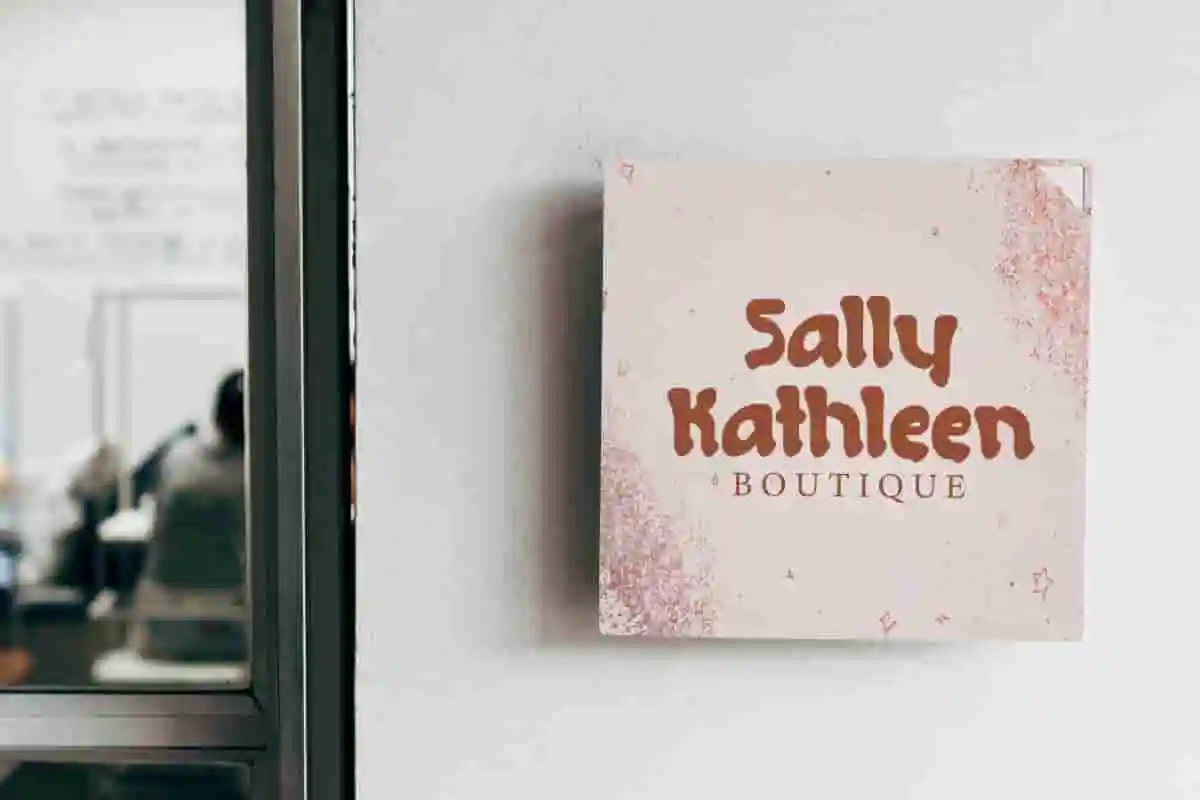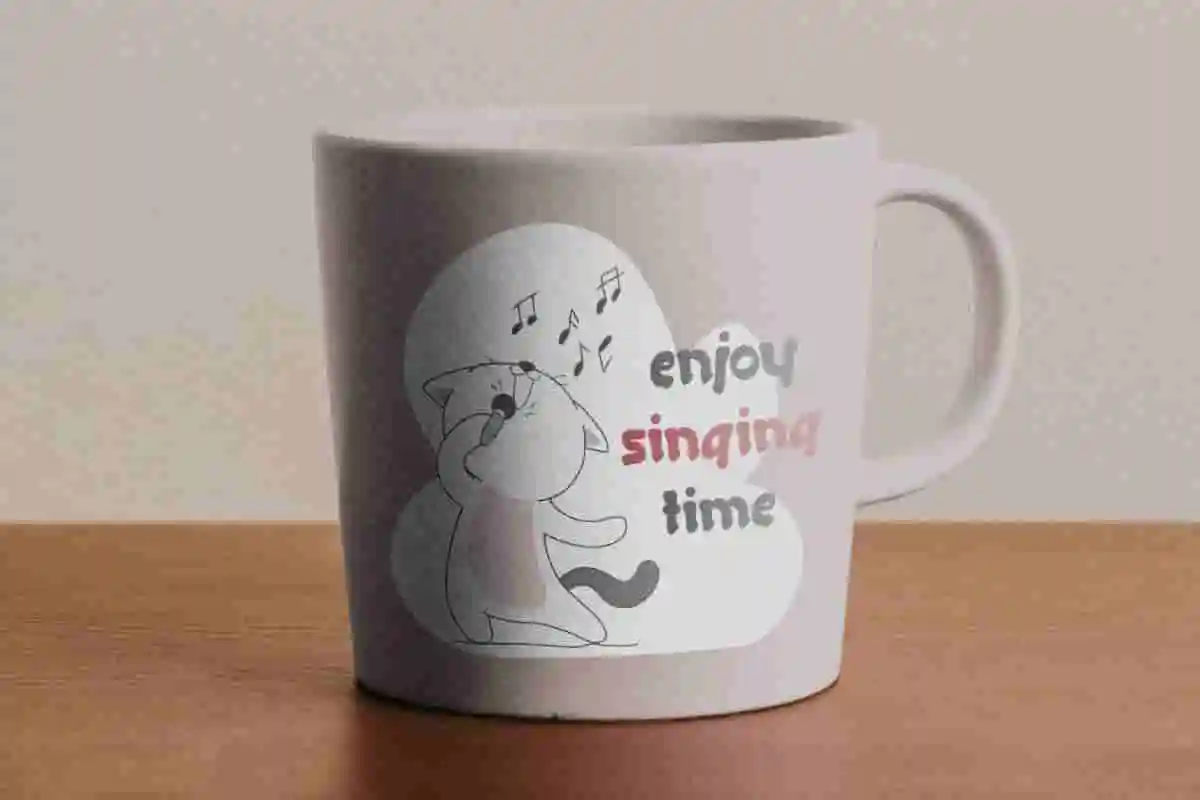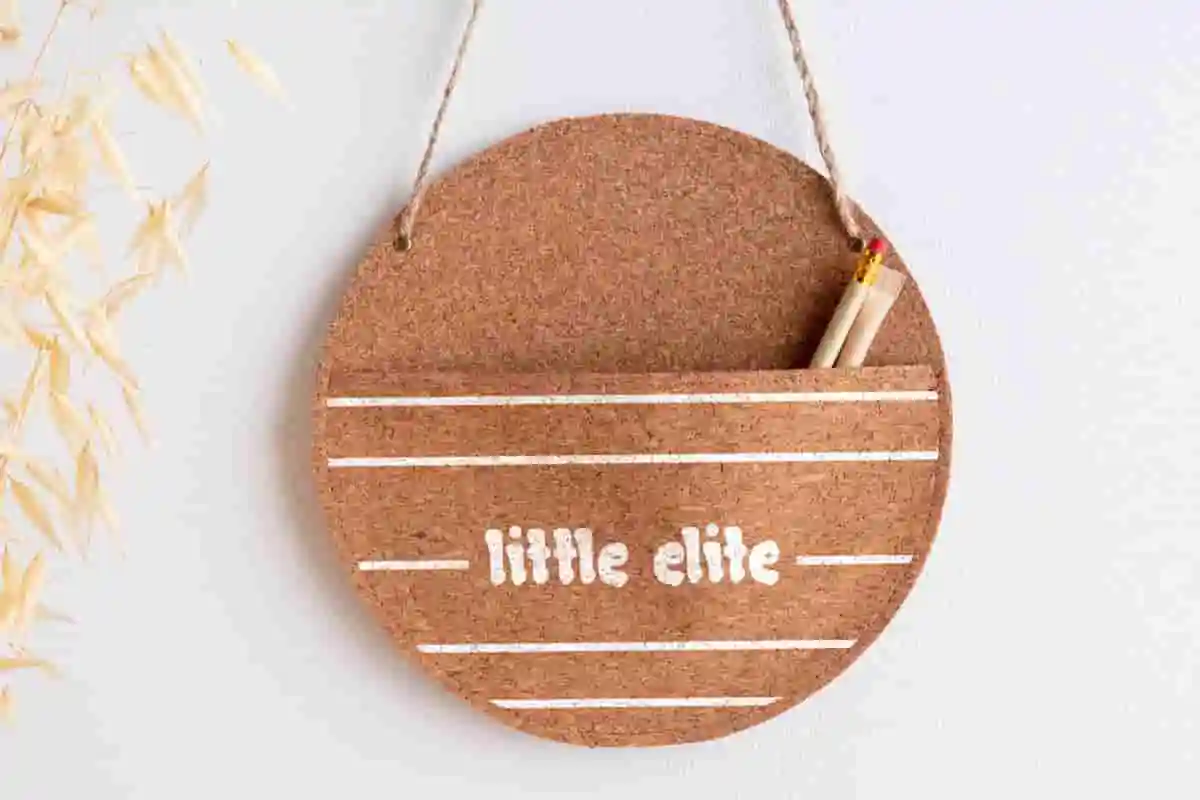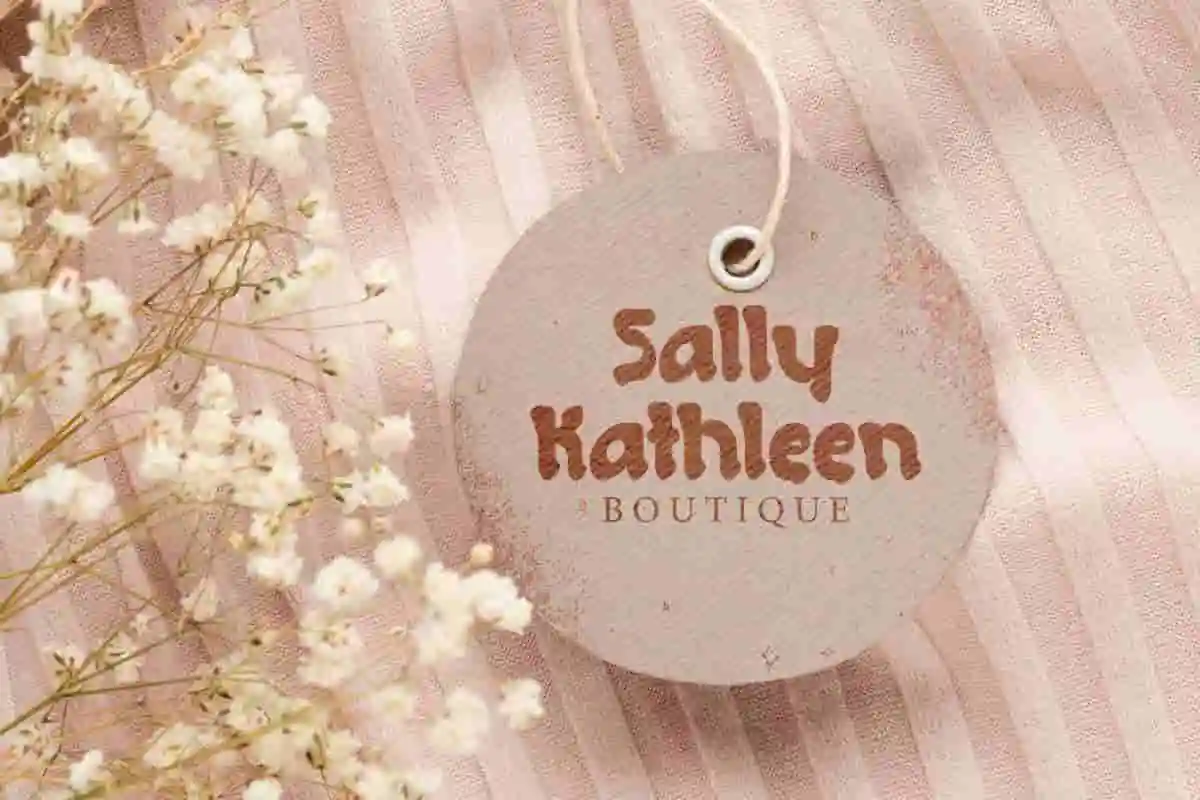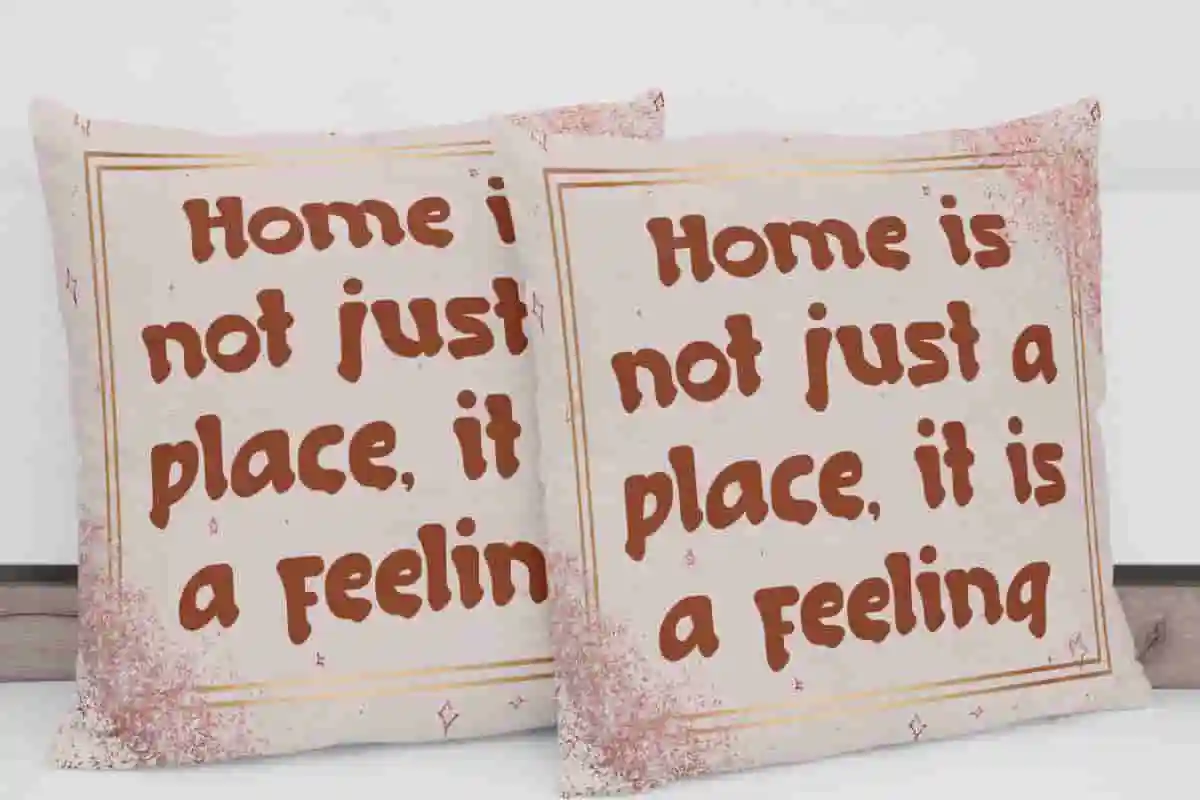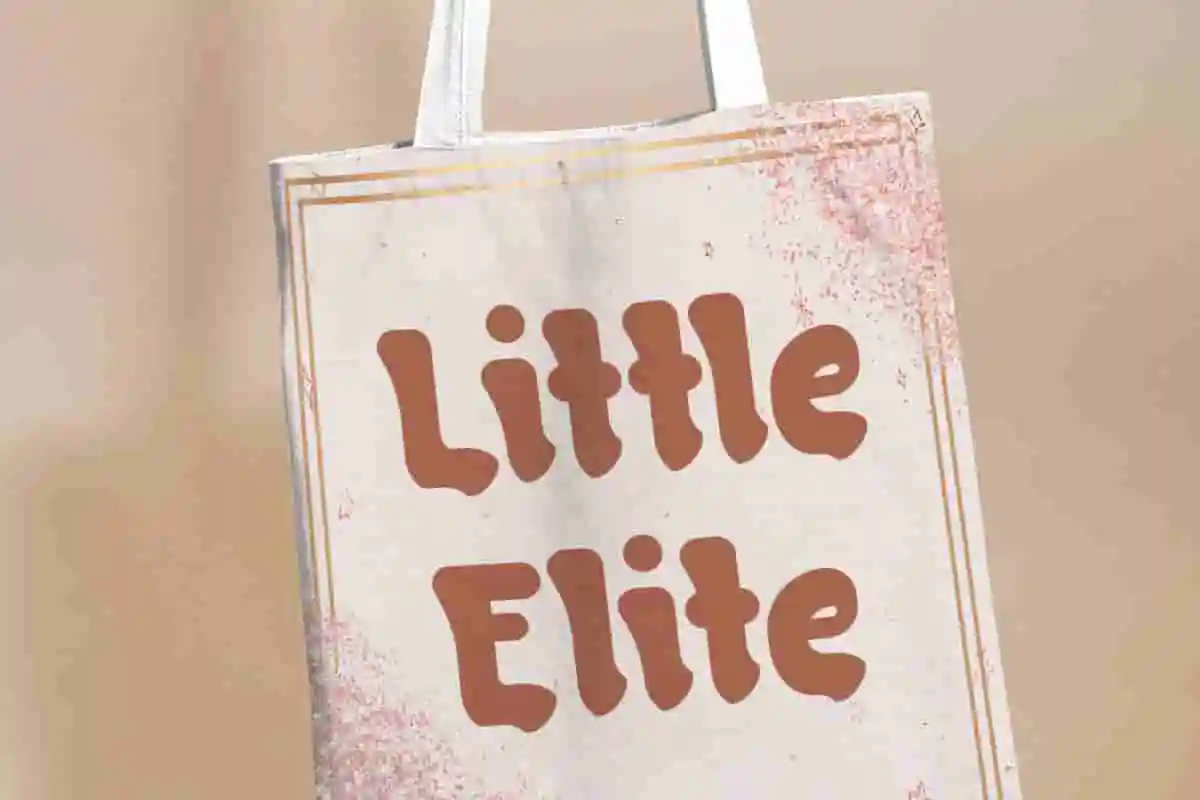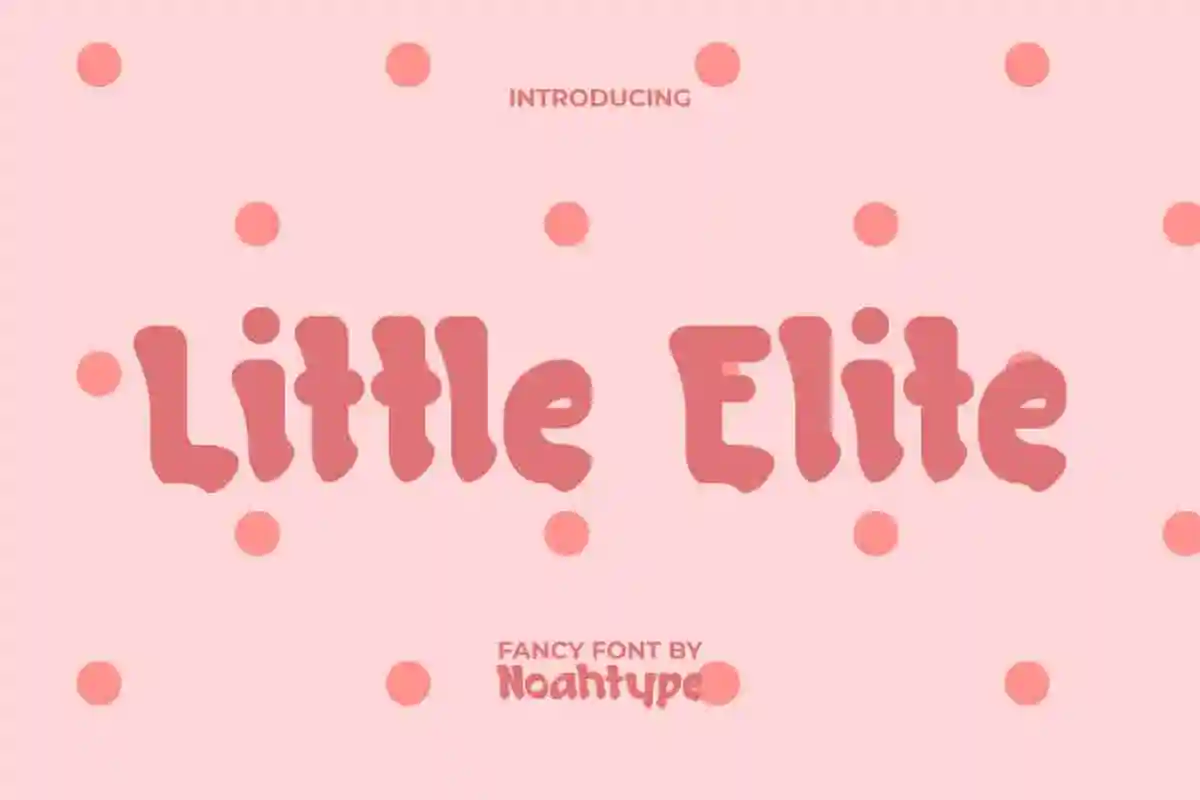
Little Elite Font is an adorable and playful display font by NoahType. This font has a short font size that makes it look cute. Its presence can perfect your design to make it more attractive and suitable for any industries, such as advertisement, café, event or festival, fashion, furniture, kids stuff, printing, publishing, and more!
Little Elite Font includes full set of Uppercase and Lowercase Basic Characters, Numerals, Punctuation, and Symbol. Get inspired and use this stylish font in your various designs, such as brand logo, brochure, custom design, greeting card, invitation, label, menu, poster, product packaging, quote, screen printing, stationery, website, and more!